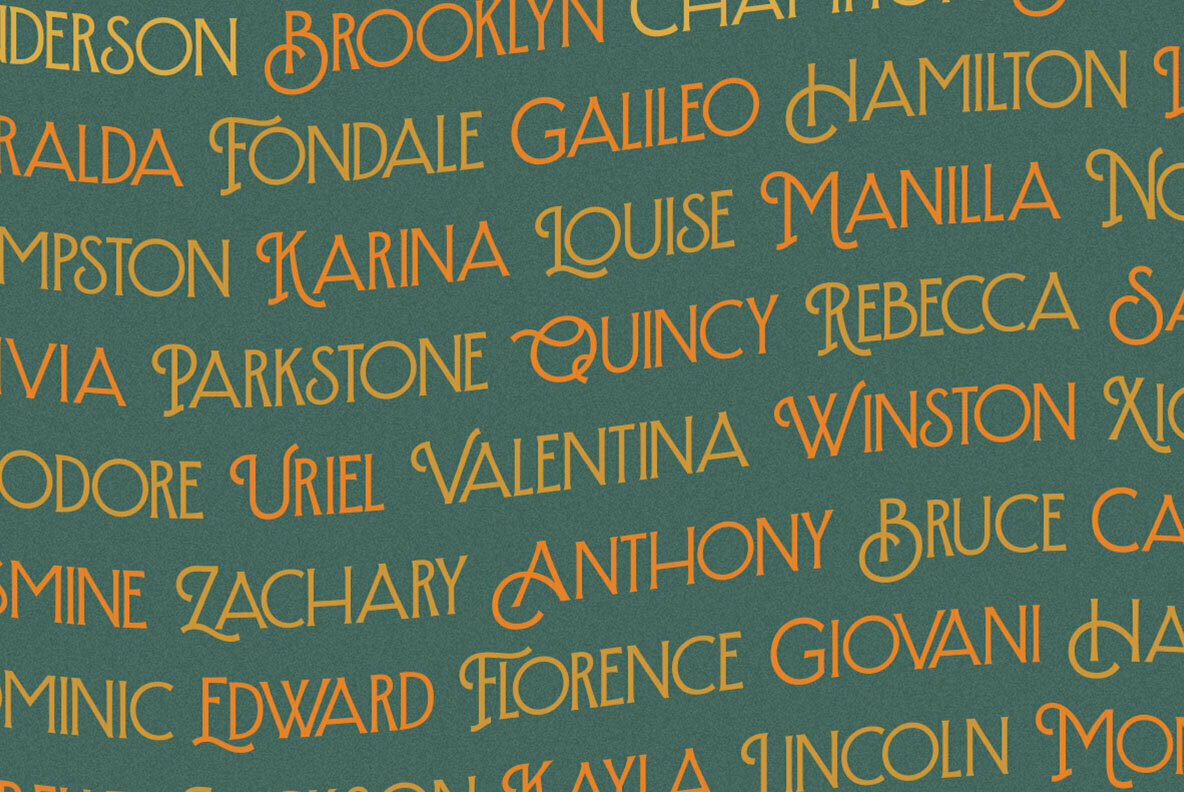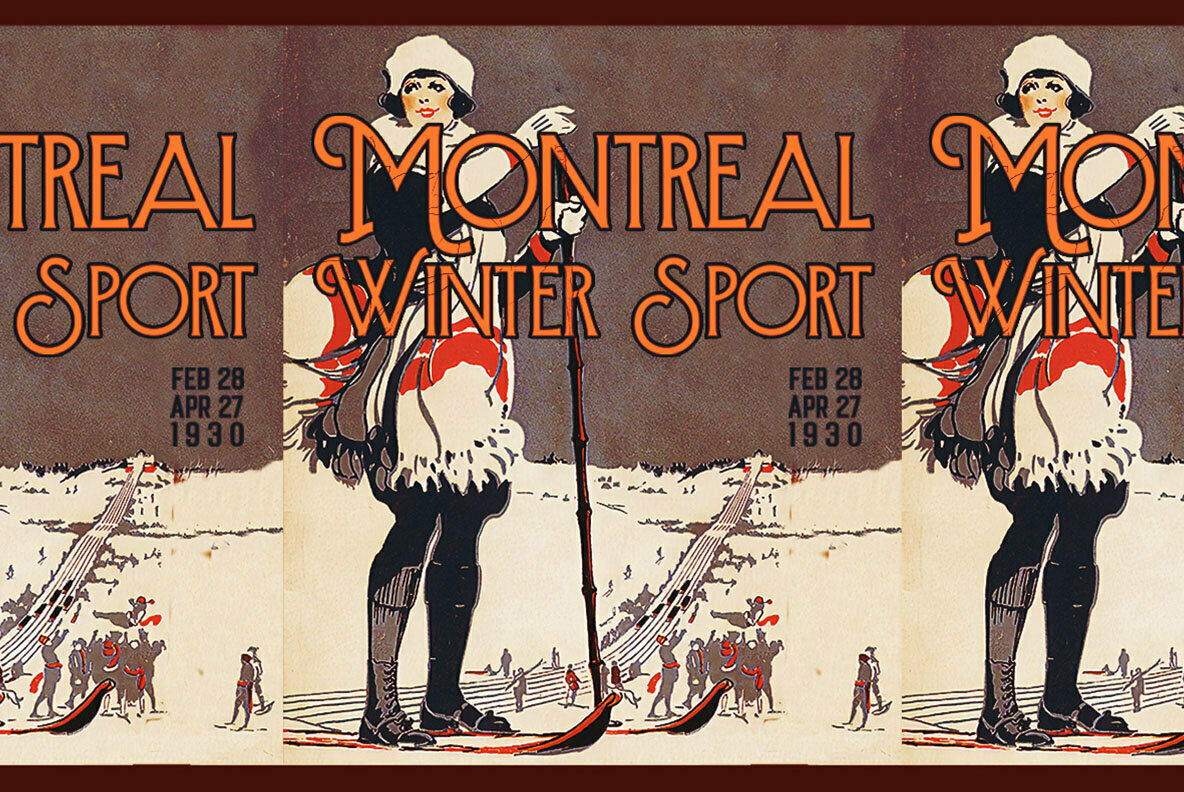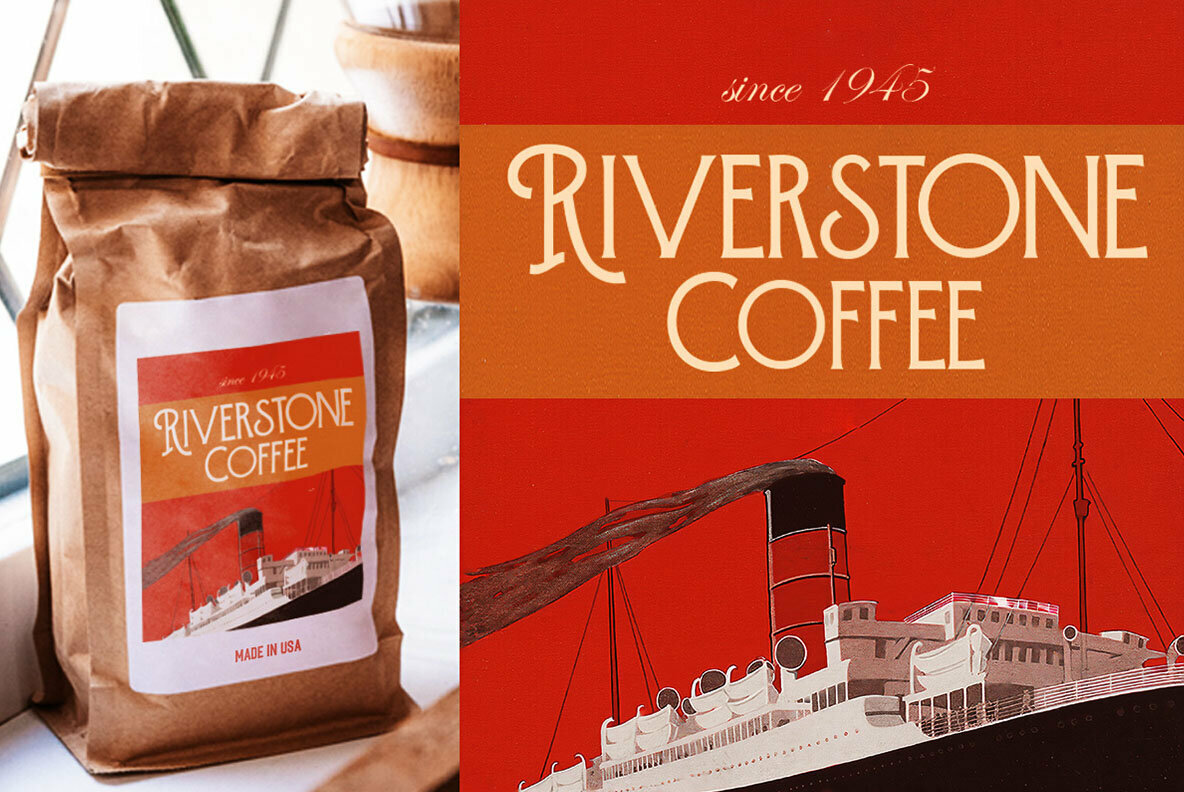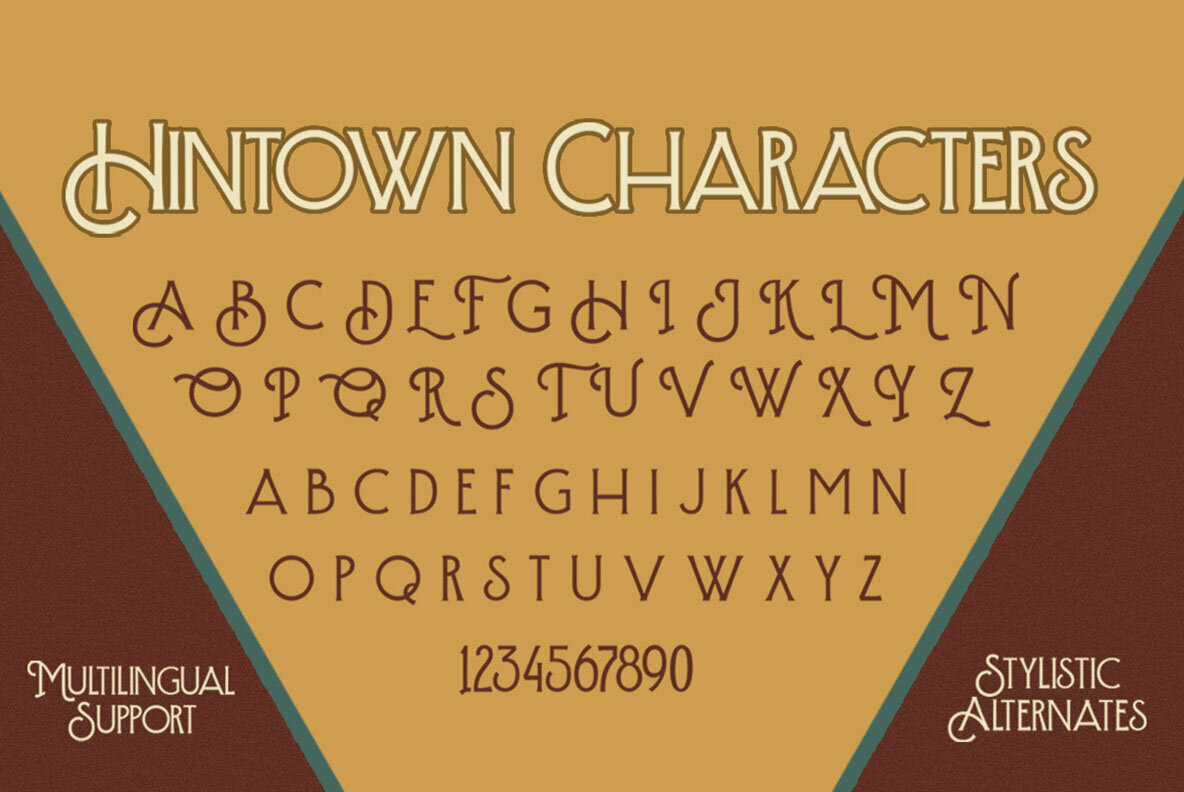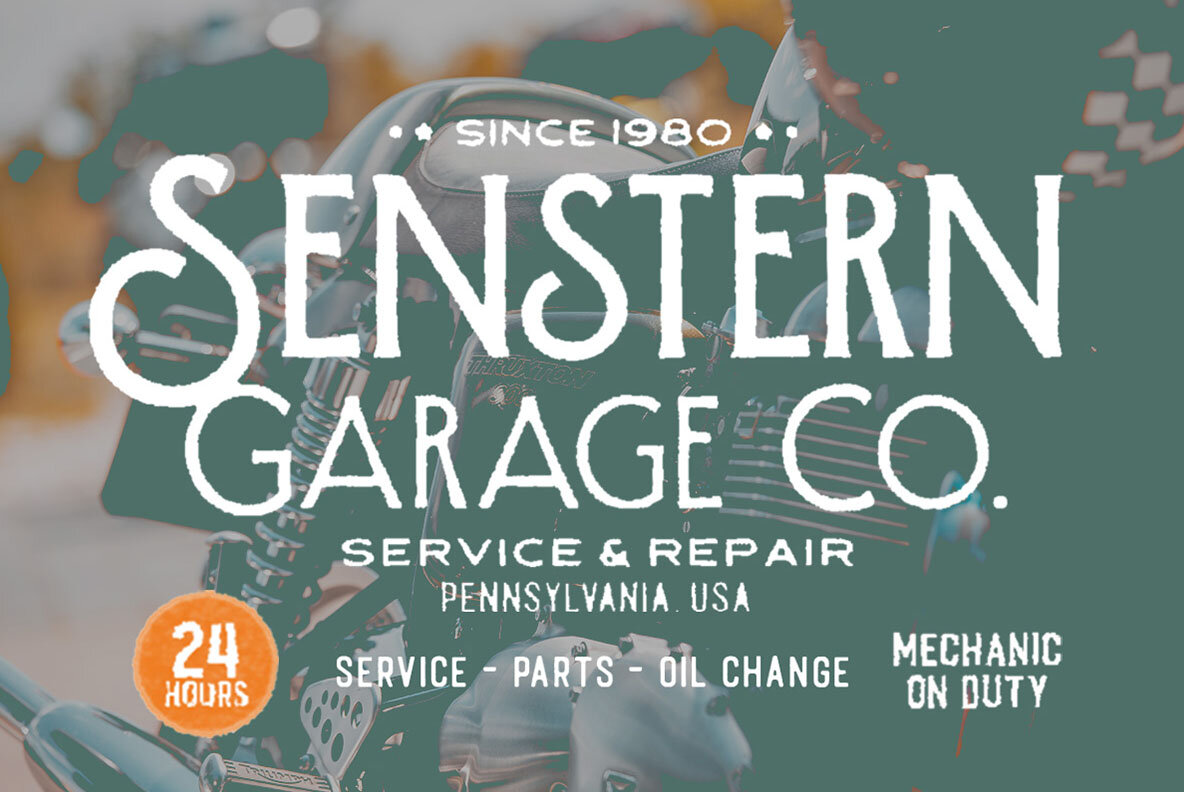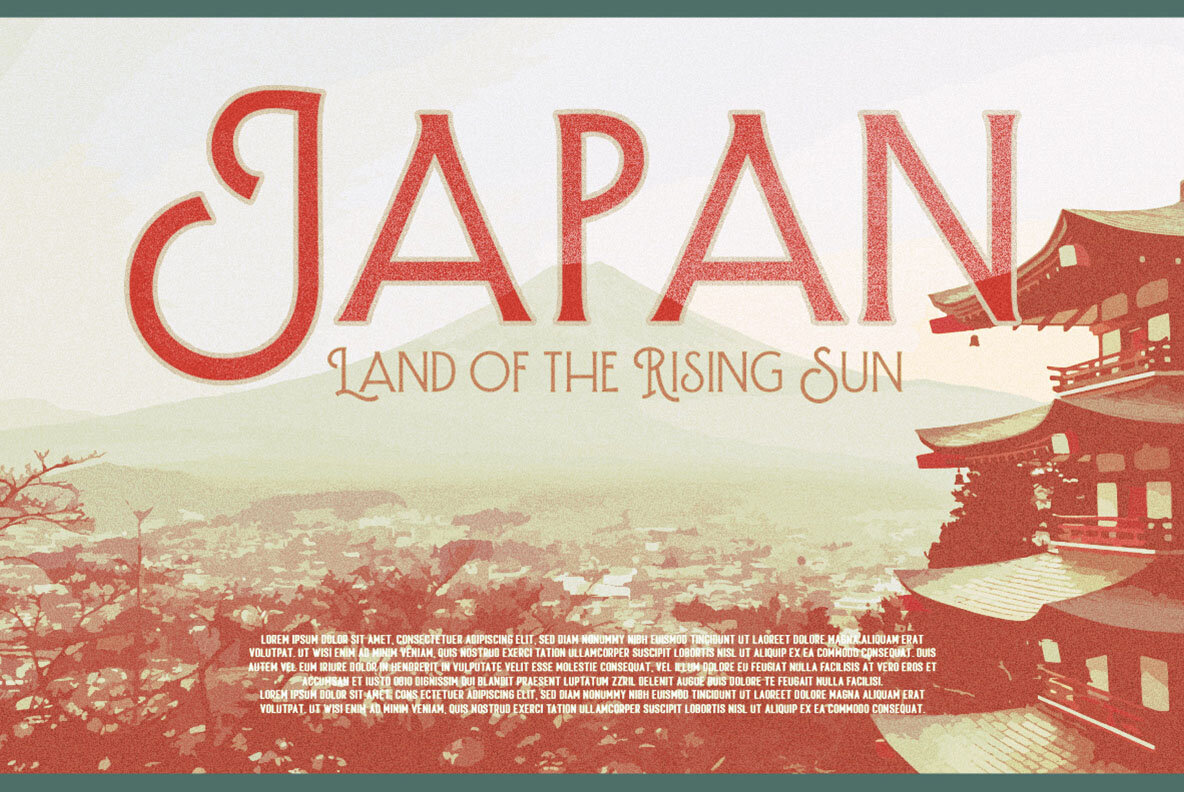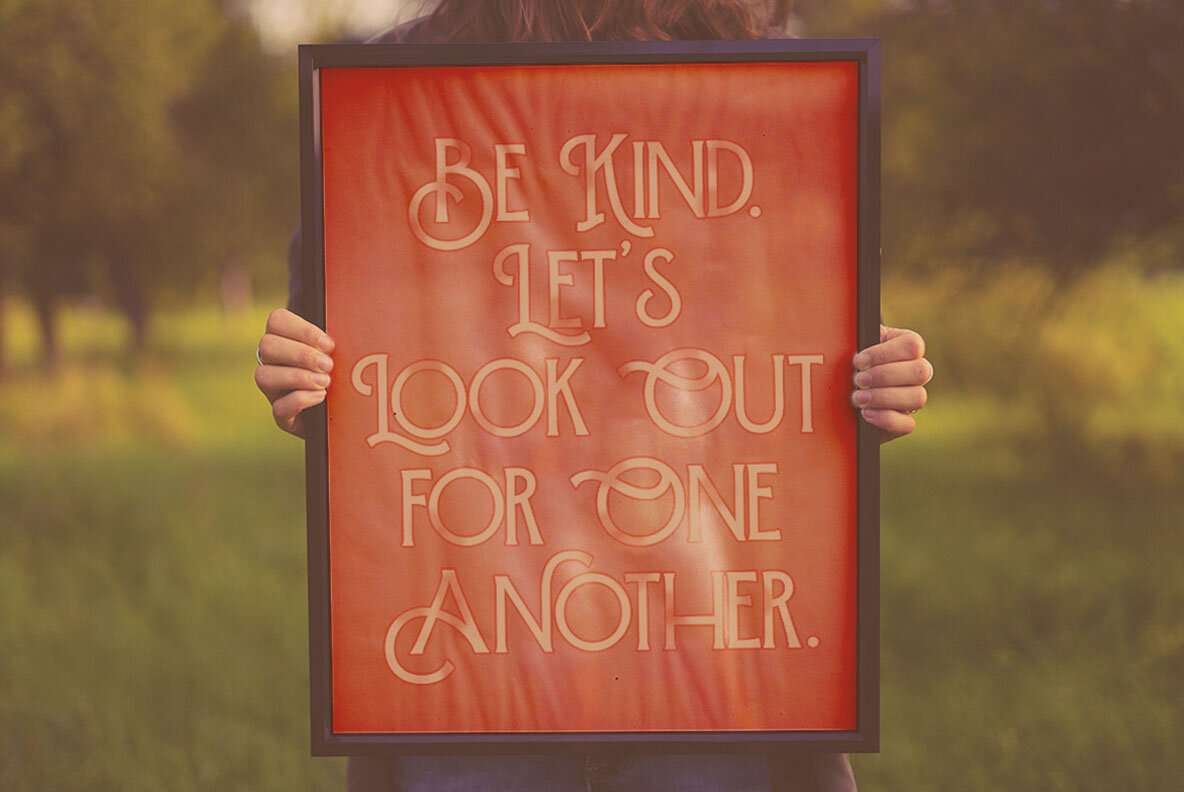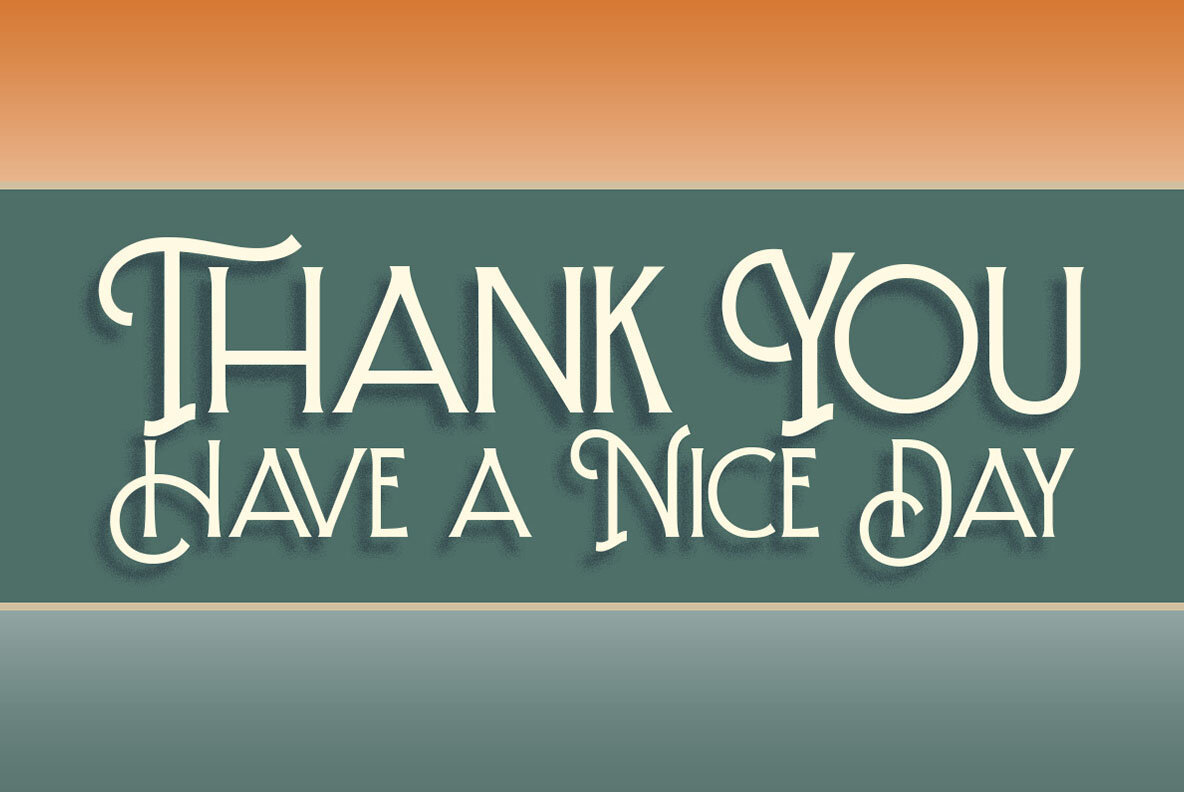
Hintown Font
Hintown Regular
Hintown by Letterhend Studio embodies a timeless elegance, bringing a vintage feel inspired by the refined aesthetics of Art Deco and early 1900s signage. With its classy and classic appeal, this serif font is ideally suited for a broad spectrum of applications. Perfect for logos, it also excels in formal uses such as invitations, magazines, book covers, greeting cards, and packaging. Hintown adds sophistication to fashion branding, stationery items, and creative advertising endeavors. Maximize your creative projects with software supporting OpenType features and Glyphs panels, such as Adobe applications and Corel Draw, to explore Hintown's full potential.Hintown: Vintage-Inspired Serif with Art Deco Flair